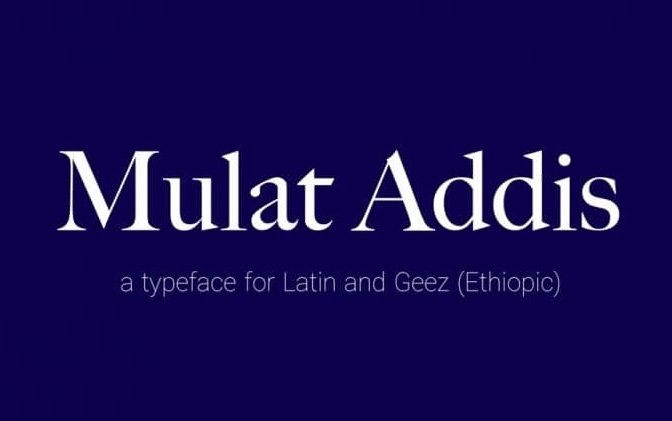
Mulat Addis Font
Mulat Addis Sans Serif Font is a serif look with simple, clean, and formal elegance. Made from font designer named Fasil Fikreab. This typeface is a serif font that supports all languages that use the Latin script and Geez scripts. For apps that support ligatures and OpenType features, it introduces capitalization to the Geez (Ethiopic) based languages.